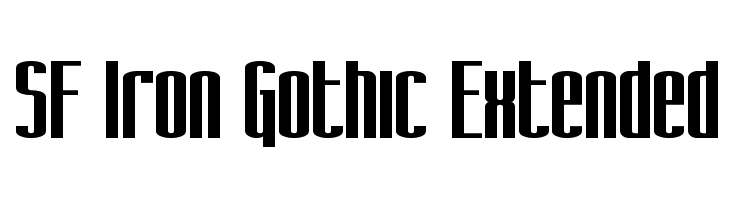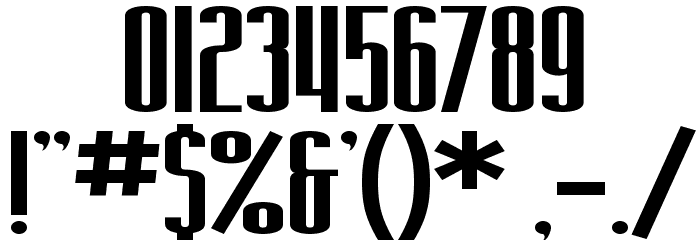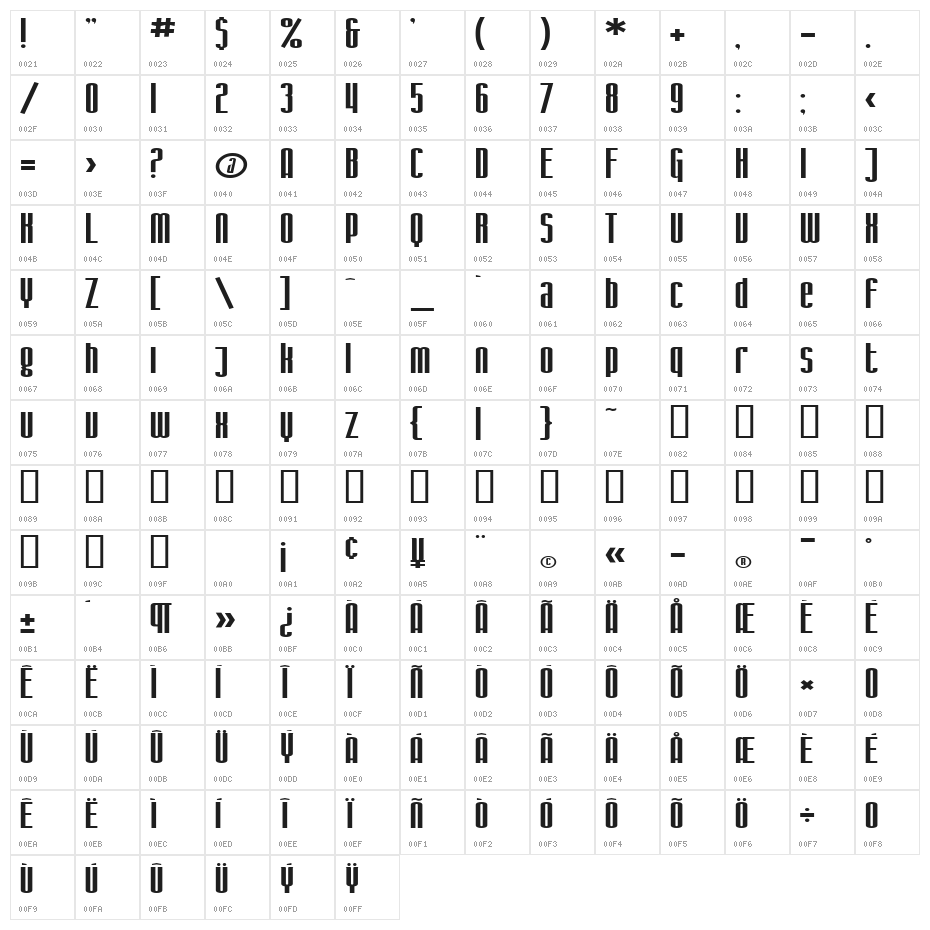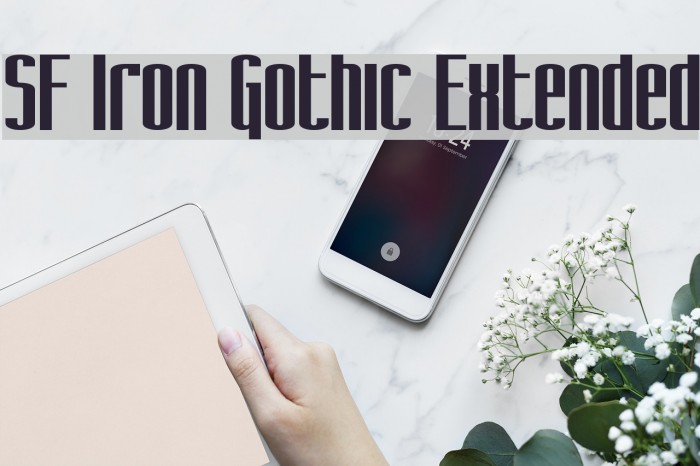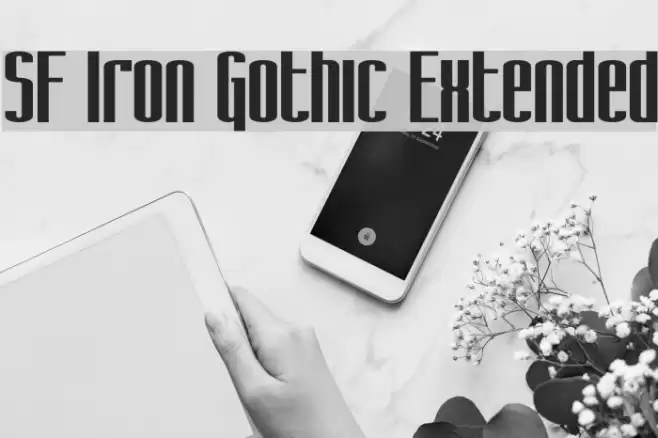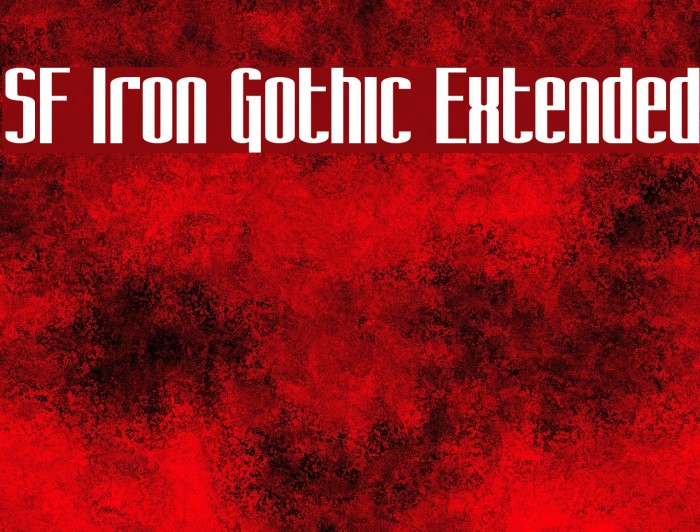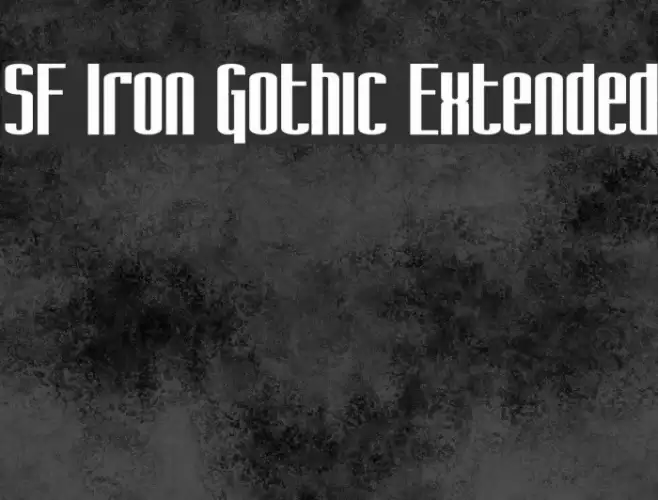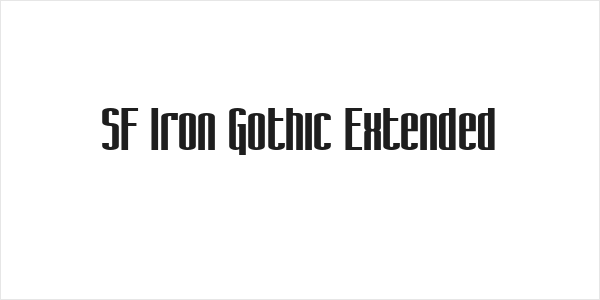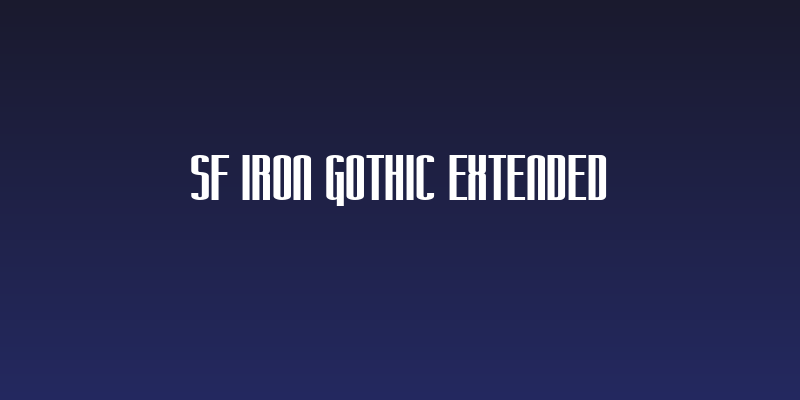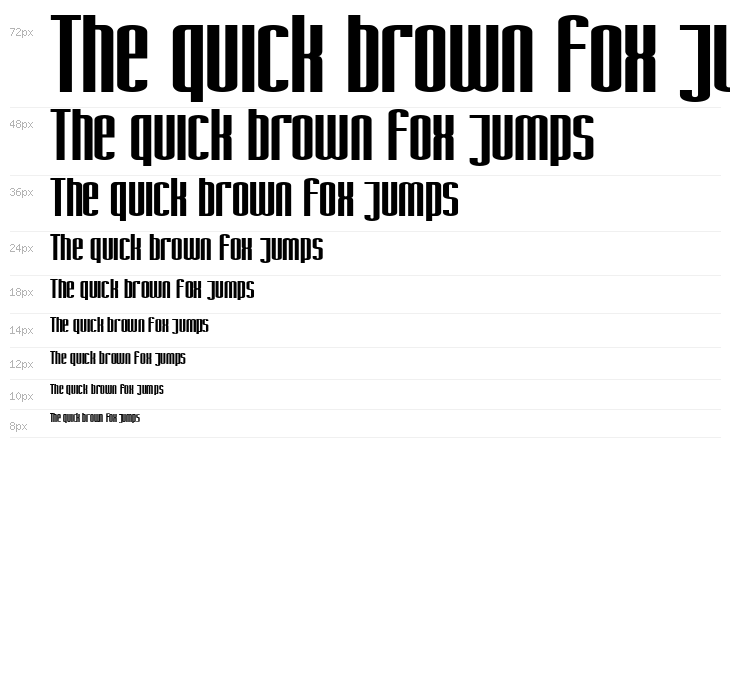
SF Iron Gothic Extended Font
SF Iron Gothic Extended Description
This font exhibits a bold and striking appearance with its tall, narrow letterforms and extended vertical lines. The characters are tightly spaced, creating a compact and cohesive look. The uppercase letters are particularly elongated, giving a sense of grandeur and authority. The lowercase letters maintain the same narrow structure, ensuring consistency throughout the typeface. The numbers are equally bold and follow the same extended style, making them stand out prominently. Special characters are designed with the same attention to detail, ensuring they integrate seamlessly with the rest of the font. This font's unique style makes it ideal for projects that require a strong visual impact.
| Proposed Projects | Ideal for posters, headlines, logos, and branding materials that need a strong visual impact. |